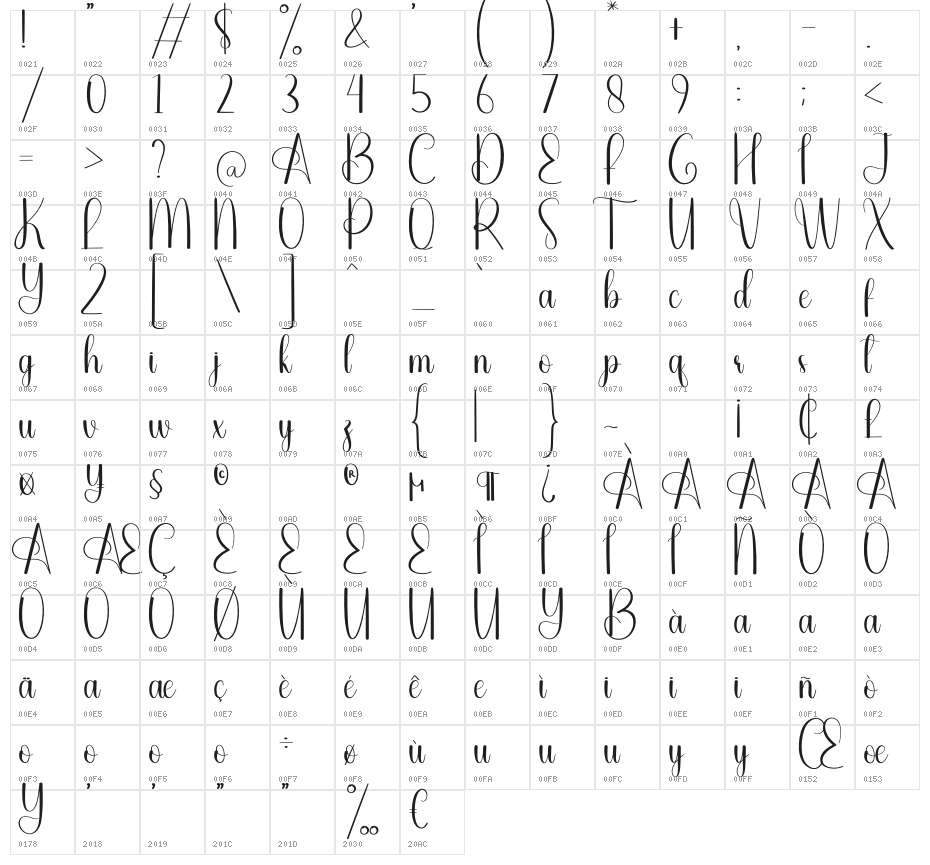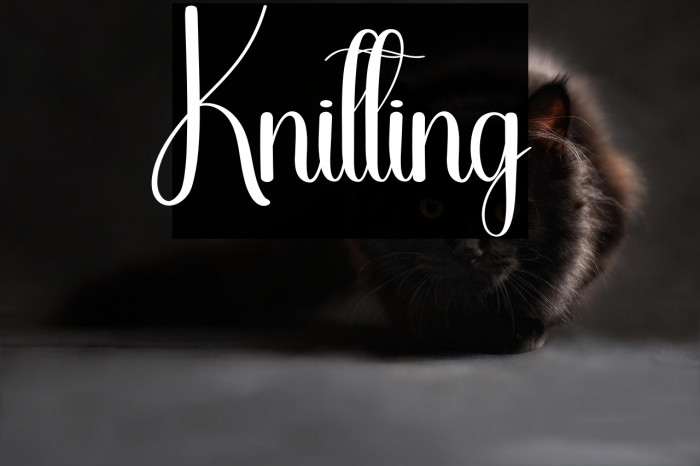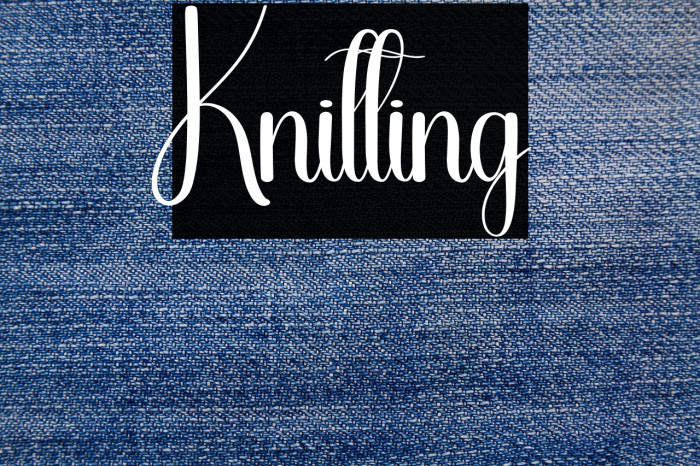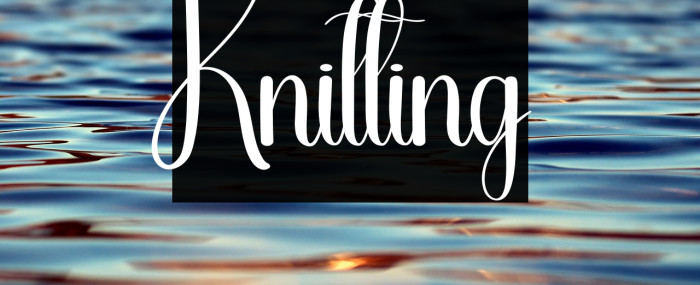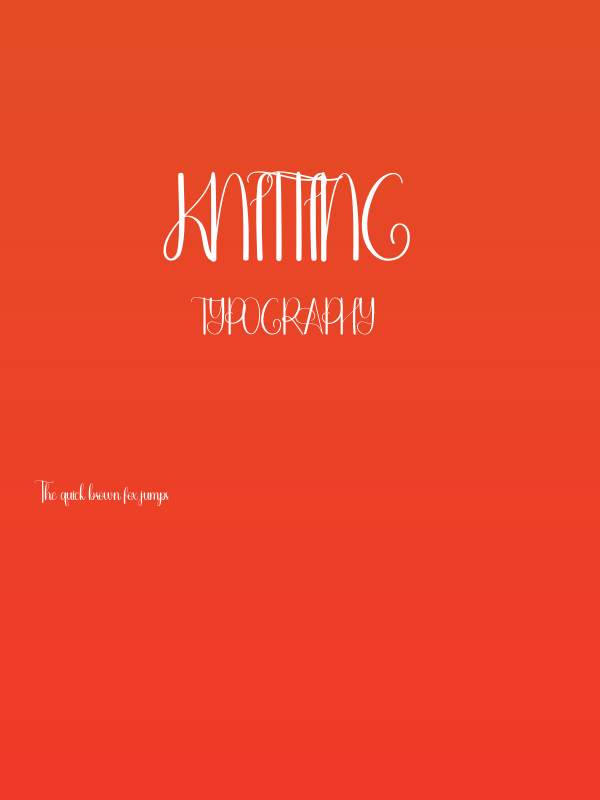
Knitting Font
Knitting Description
A decorative script font with elegant, flowing lines and high contrast between thick and thin strokes.
| Use Case | Logos, Invitations |
| Proposed Projects | Invitations, greeting cards, branding. |